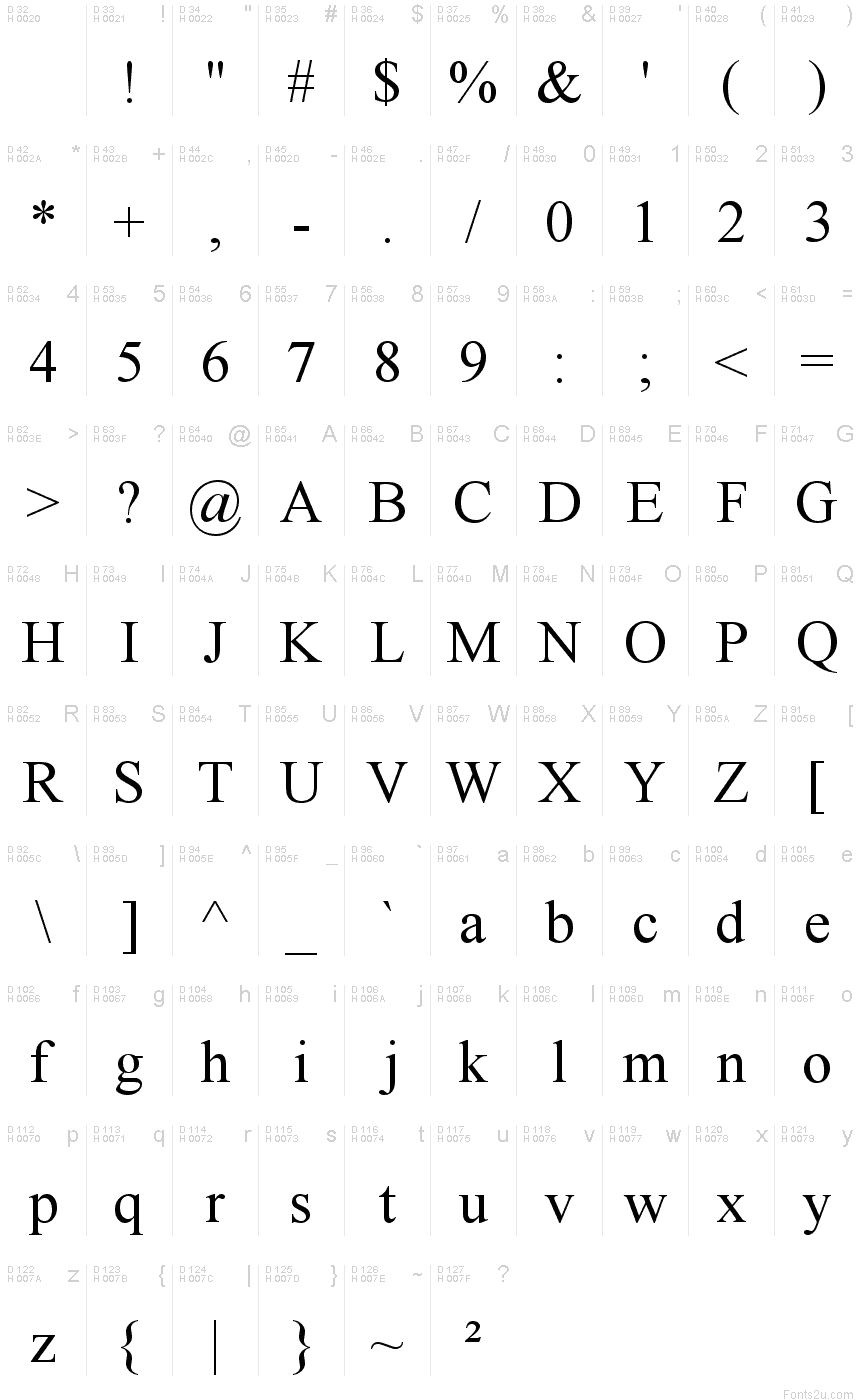
Cieszyn
Cieszyn by Libor Sztemon of Liborsoft is a free high-contrast serif font with the poised look of a modern Didone. Tall, broad capitals combine fine hairlines with swelling vertical strokes and crisp, unbracketed serifs. Rounded forms are especially generous, and the lettering has an elegant, imposing silhouette.
Its Didone character suits fashion publishing and fragrance packaging, where refined letter shapes can establish a formal direction. It also belongs on cultural event posters and book covers. In branding, the pronounced stroke contrast can turn a name into a clean, fashion-conscious signature.